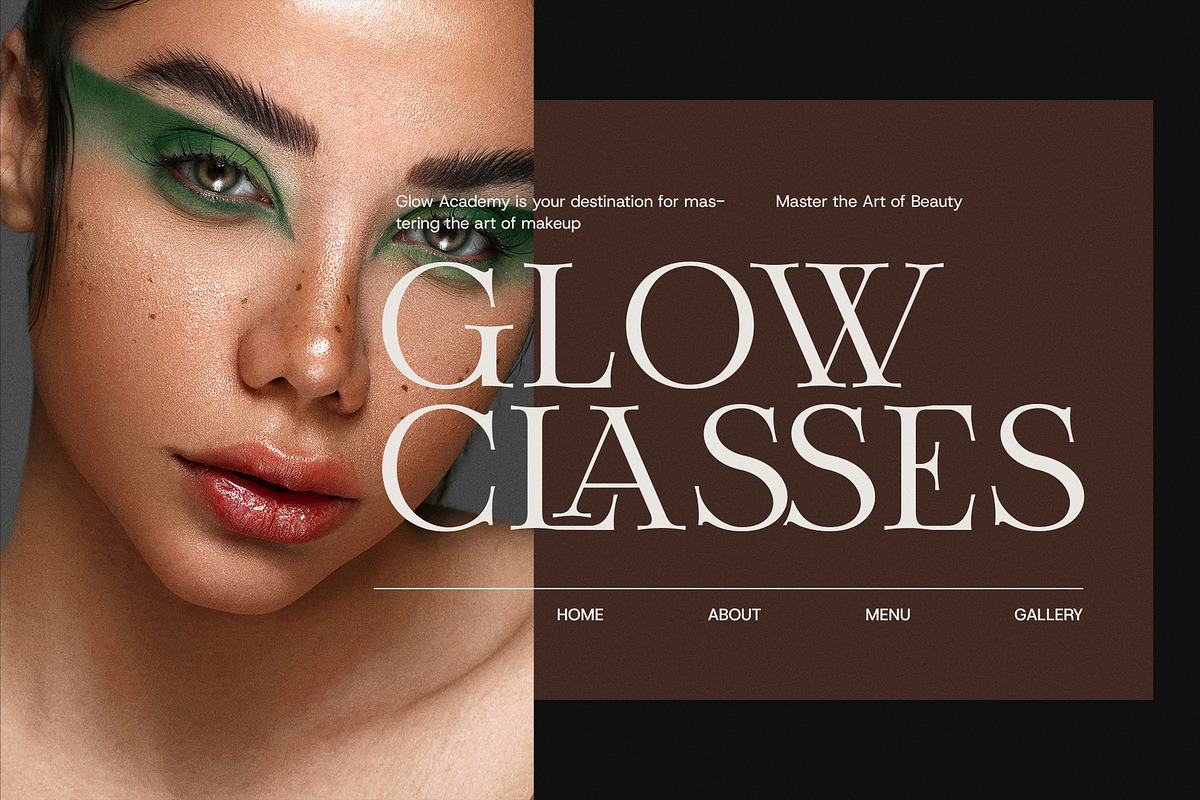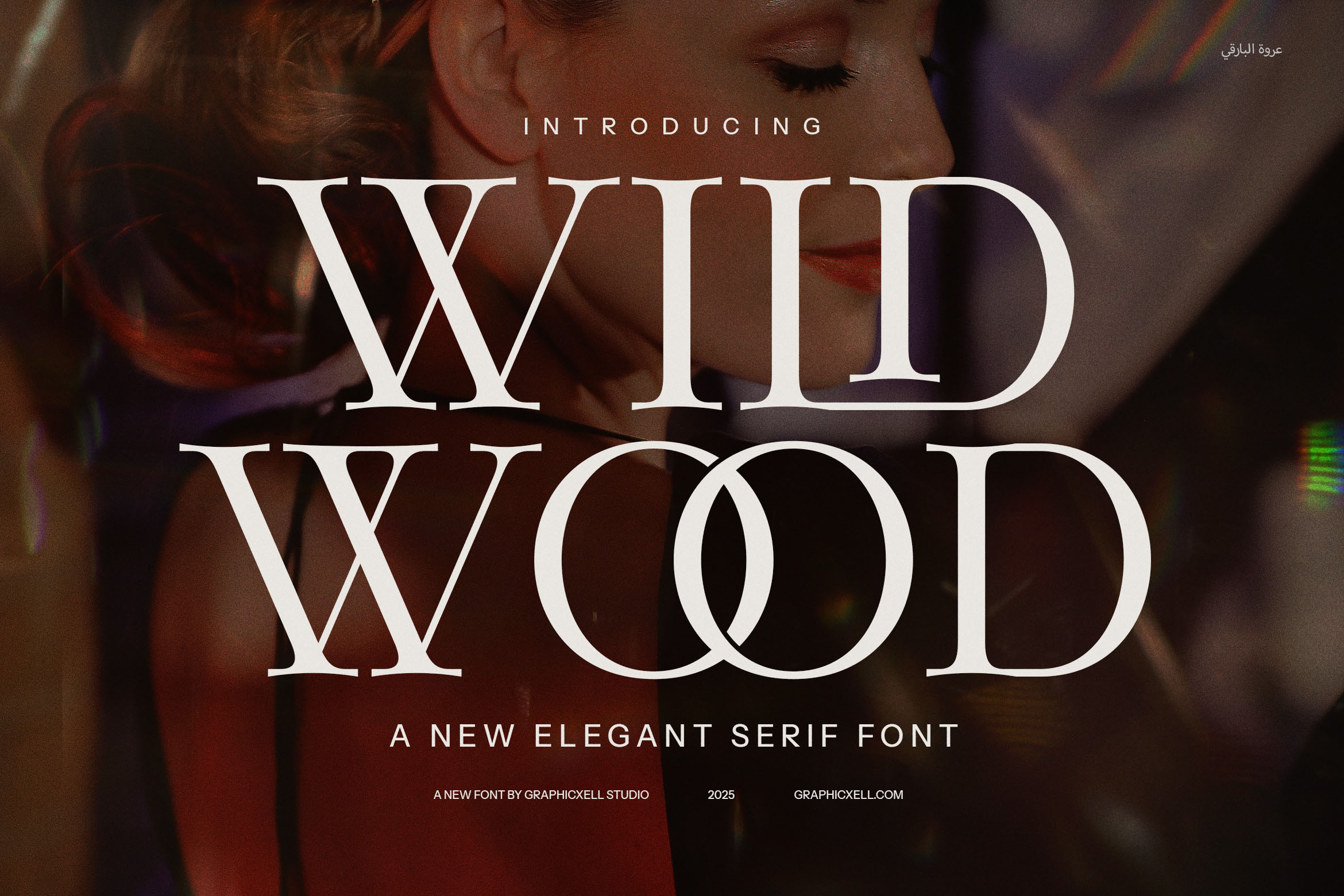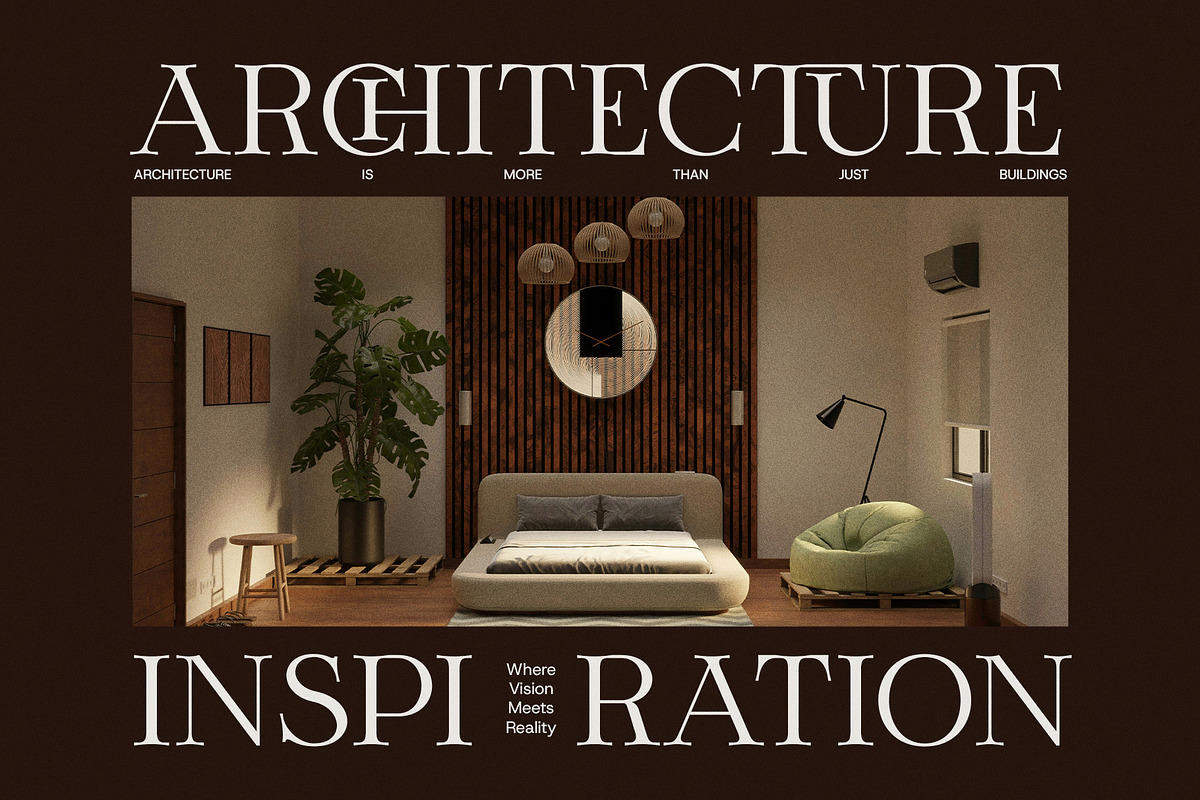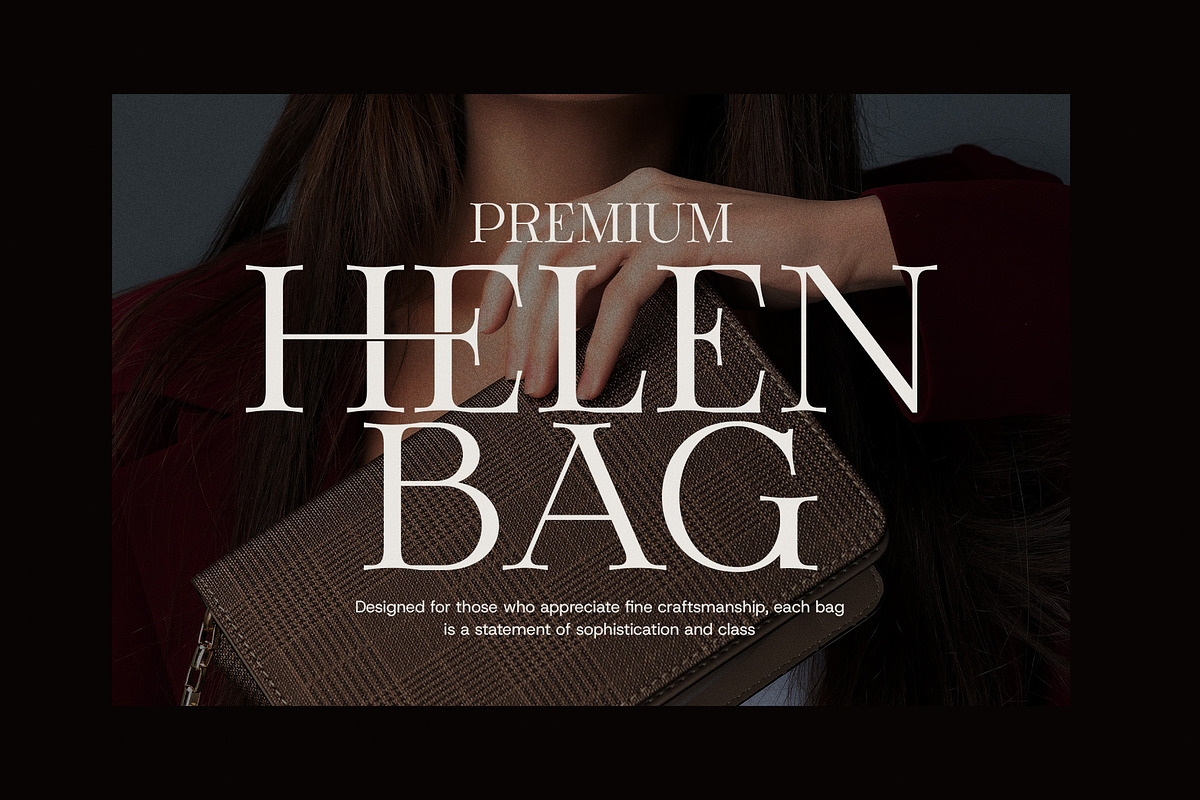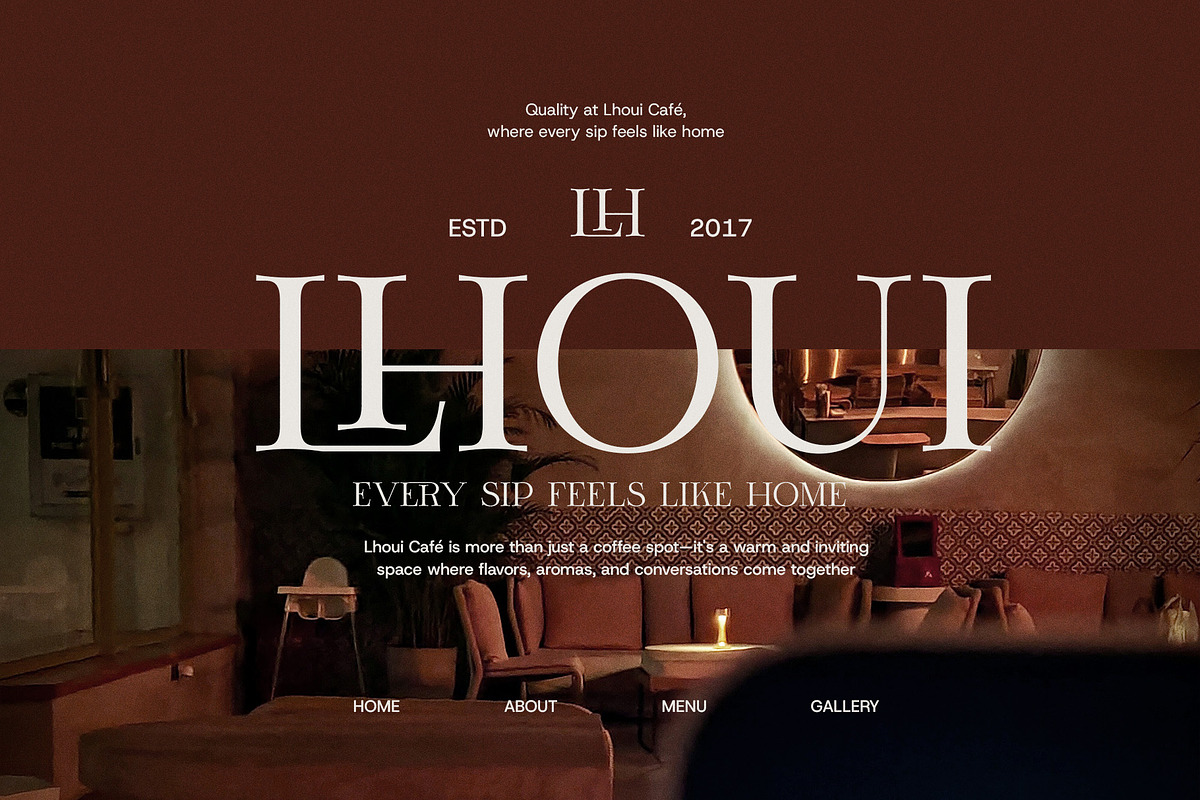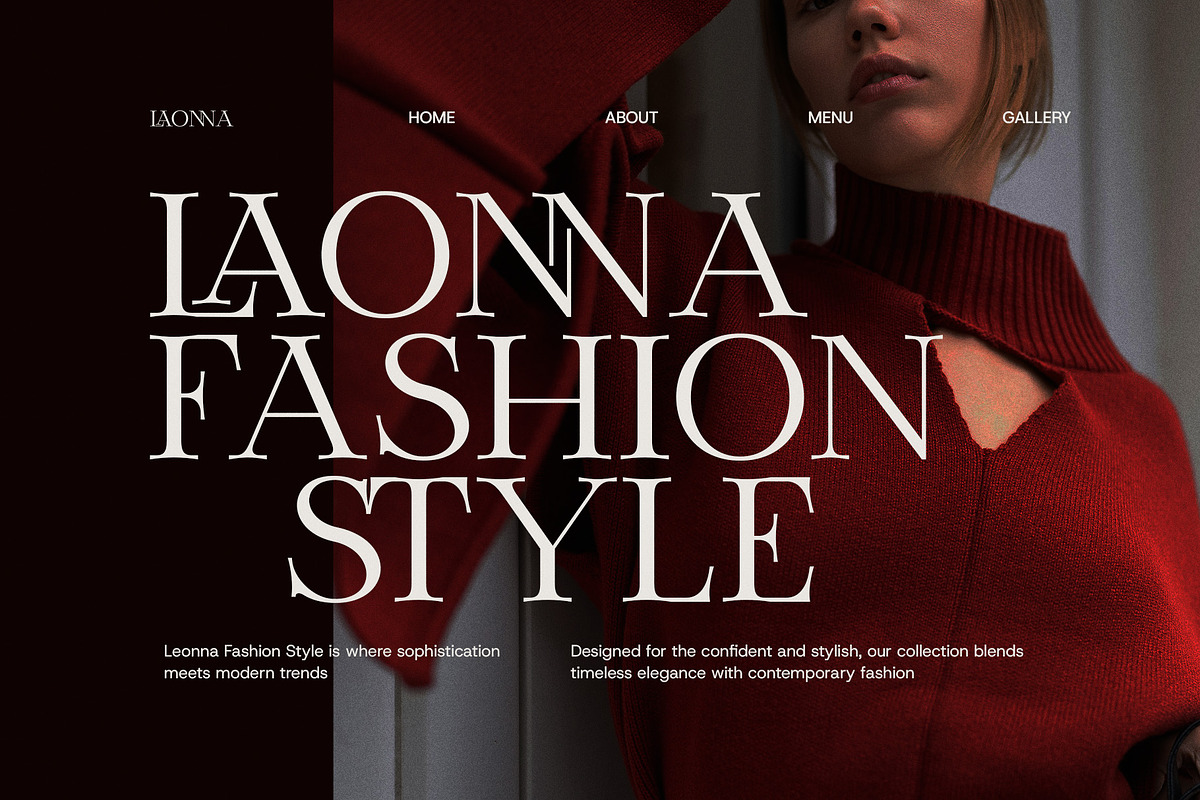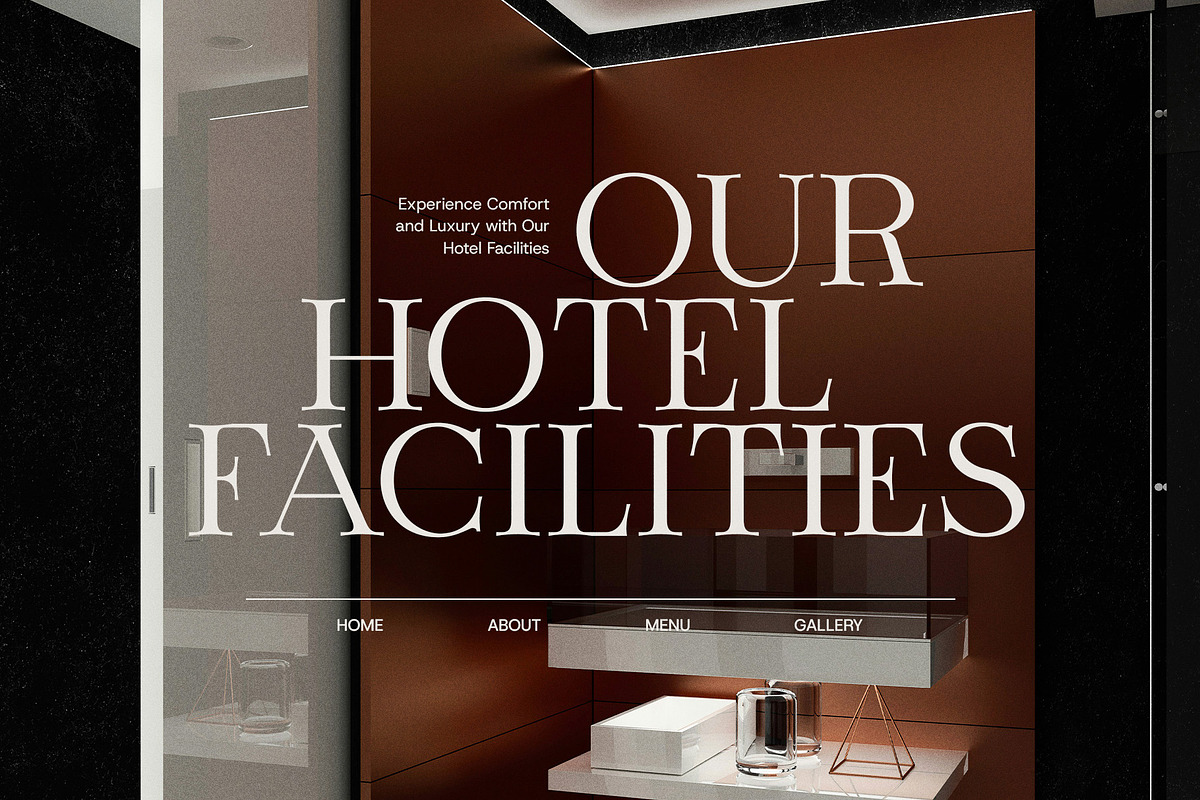
Wild Wood Minimal Serif Font
Introducing Wild Wood Minimal Serif Font Typeface – a modern, elegant serif font designed to embody simplicity, sophistication, and timeless beauty. This unique typeface blends sleek, minimalist design with graceful serif details, offering a refined and luxurious aesthetic for a variety of high-end applications. Wild Wood’s distinctive character makes it the perfect choice for projects that require a touch of class and understated elegance.
What sets Wild Wood apart is its elegant functional ligatures, carefully designed to create smooth, seamless transitions between characters. These ligatures enhance the flow of the type while adding a harmonious, polished touch to your typography. This functional beauty ensures that Wild Wood remains visually appealing and easy to read, while maintaining its luxurious, high-end feel.
Ideal for classy, women-focused brands, Wild Wood’s sleek design is perfect for creating sophisticated logos, branding materials, websites, and more. Its modern yet refined look makes it the perfect choice for luxury fashion lines, upscale product labels, premium boutiques, and lifestyle brands. Whether you're designing for exclusive magazines, advertisements, or elegant packaging, Wild Wood provides the perfect blend of style and versatility to make your brand stand out.
With its clean lines and elegant details, Wild Wood excels in a wide range of design applications. It is equally well-suited for boutique branding, fine dining promotions, or even high-end food and beverage packaging. The minimalist yet striking design adds a modern touch to any project while maintaining a sense of timeless elegance.
Elevate your designs with the Wild Wood Minimal Serif Font Typeface – the ideal choice for those looking to convey luxury, modernity, and sophistication with a minimalist approach. Perfect for projects that call for refined aesthetics and a touch of elegance.